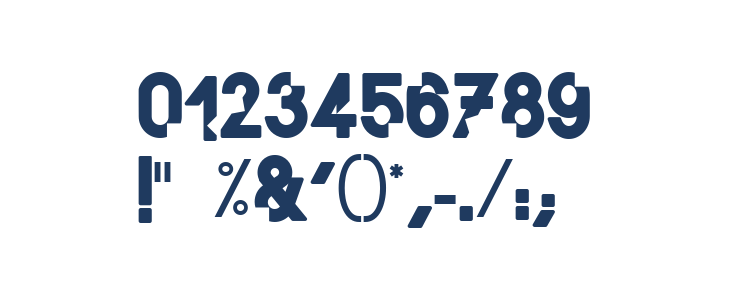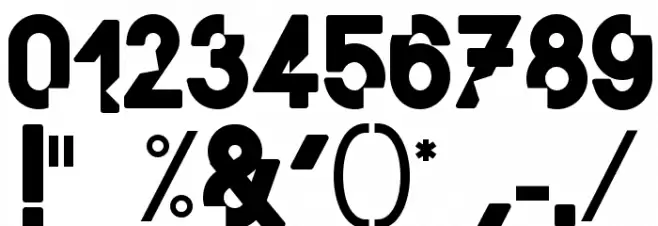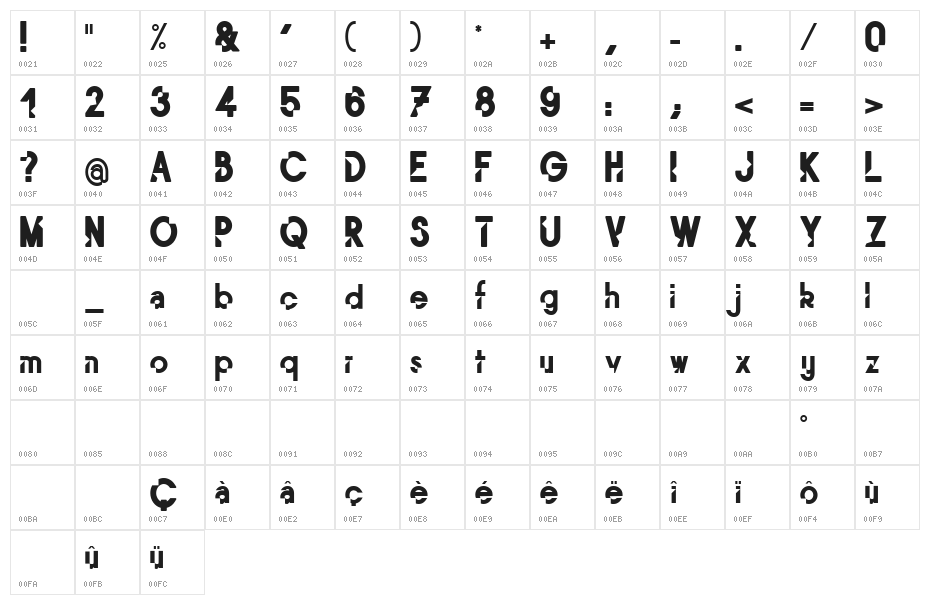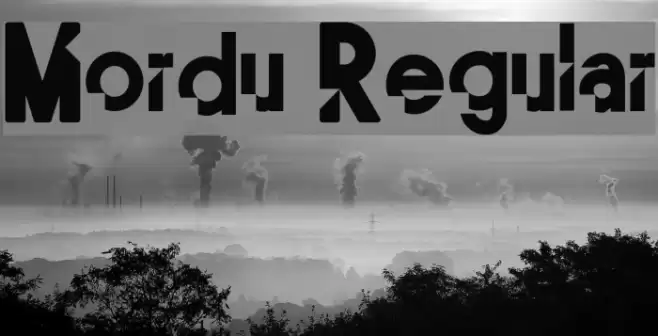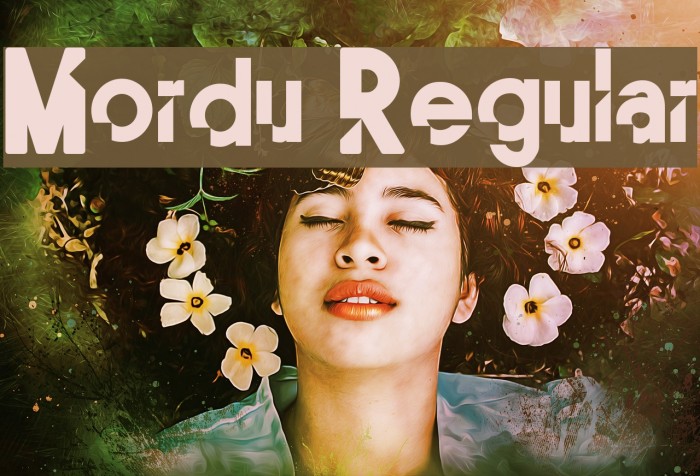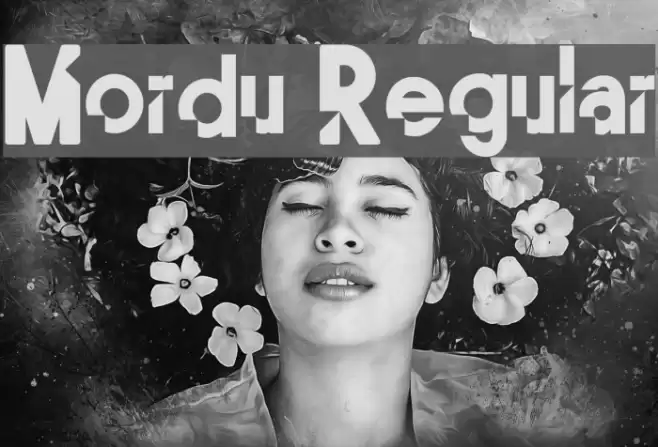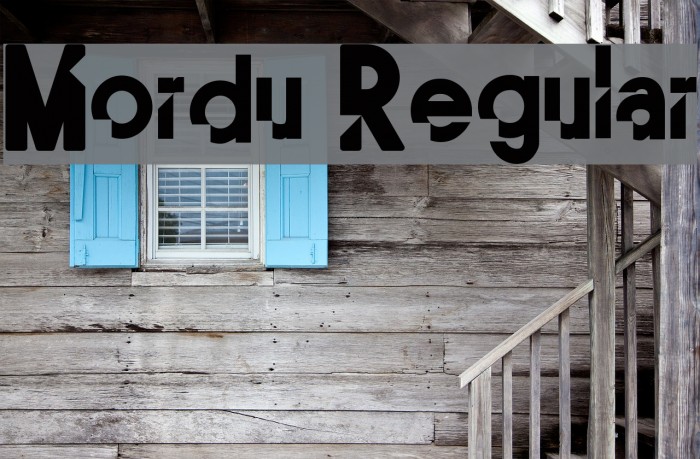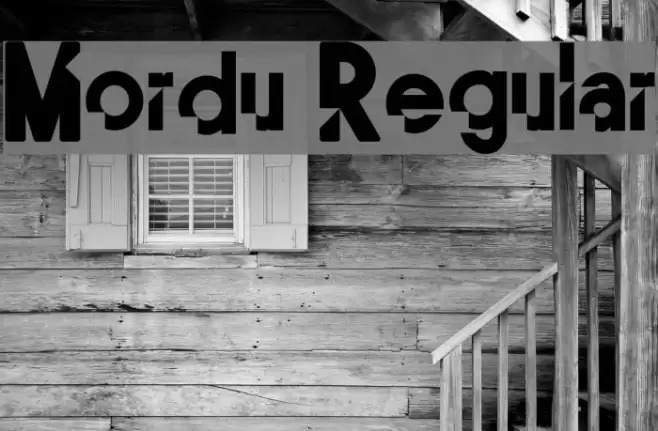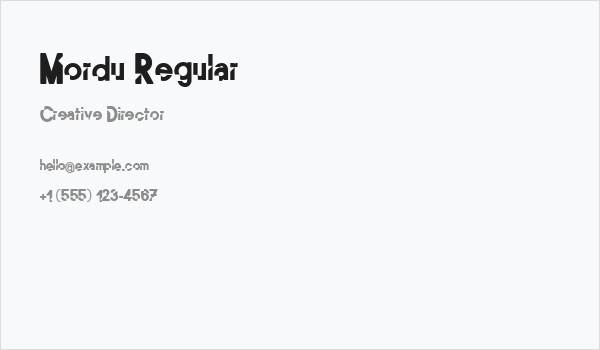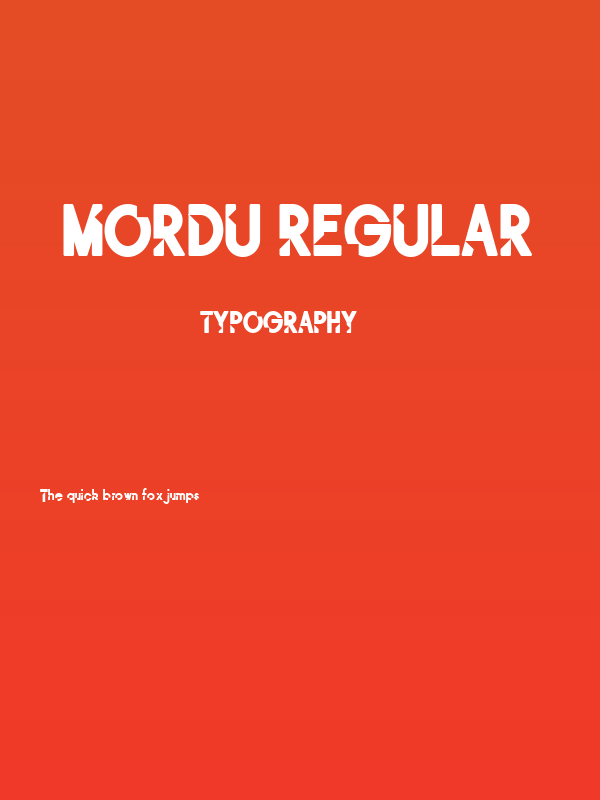
Mordu Regular Font
Mordu Regular Description
This font features a bold and geometric style with strong, angular lines and a modern aesthetic. The uppercase letters are characterized by their solid, block-like appearance, while the lowercase letters maintain a consistent weight and structure. The numerals are equally bold, with a uniform thickness that complements the overall design. Special characters are designed with the same geometric precision, making them stand out. The font's unique style is both eye-catching and versatile, suitable for a variety of design applications.
| Proposed Projects | Ideal for branding, headlines, posters, and modern graphic design projects. |